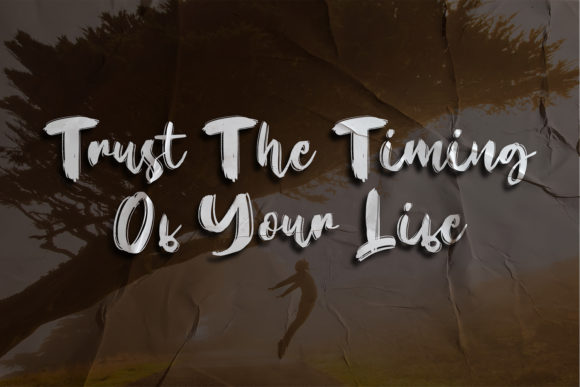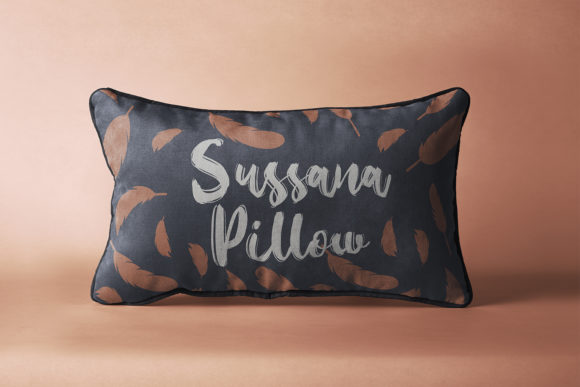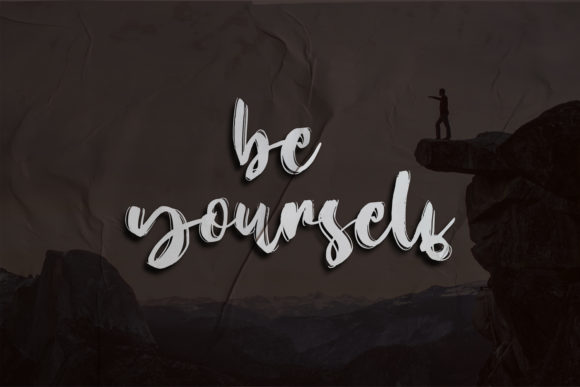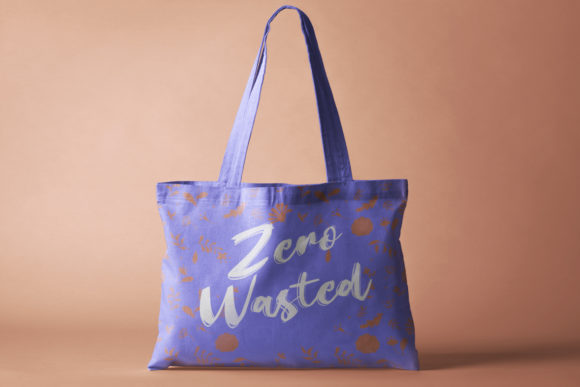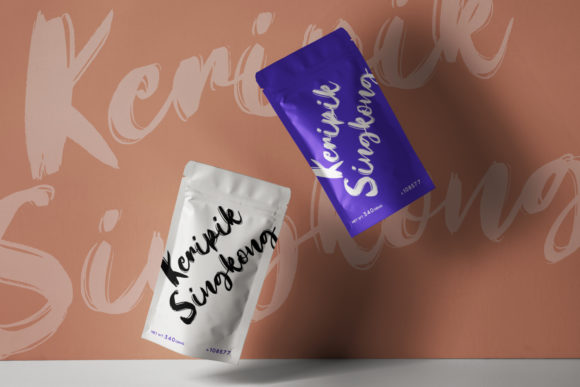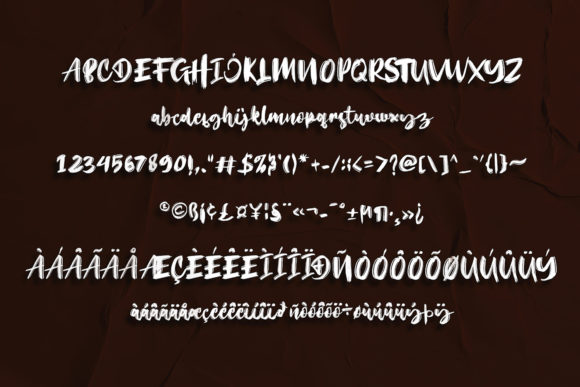
The Ultimate Crafting Font: High Performance
I’ll never forget the moment I stumbled upon the perfect font for my crafting project. I was working on a handmade card for a friend’s birthday, and I wanted it to feel extra special. As I scrolled through my font library, I came across High Performance – a beautiful, elegant script that seemed to dance across the page. It was love at first sight! 💕
High Performance combines natural handwriting with an elegant look, making it the ideal crafting font for designers, crafters, and creative hobbyists alike. In this article, we’ll dive into the world of High Performance, exploring its features, benefits, and uses.
• ✨ Elegant and refined aesthetic, perfect for crafting and design projects
• ✅ Natural handwriting feel that adds a personal touch
• 💫 Highly legible, even at small font sizes
• 🎨 Versatile and adaptable to various design styles and themes
While High Performance is an exceptional font, there are a few minor quirks to be aware of:
• 🤔 Some users may find the font a tad too slender for certain design applications
• ⚠️ Limited availability of condensed or bold variations
High Performance was designed with the creative crafter in mind. The font’s creator aimed to craft a script that would capture the essence of natural handwriting, while still exuding elegance and refinement. The result is a font that feels both personal and sophisticated – perfect for a wide range of design applications.
Q: What makes High Performance suitable for crafting projects?
A: High Performance’s elegant, refined aesthetic and natural handwriting feel make it an ideal choice for crafting projects, such as handmade cards, invitations, and DIY tutorials.
Q: Is High Performance available in multiple languages?
Q: Can I use High Performance with other fonts in a design?
A: Absolutely! High Performance pairs well with a variety of fonts. Experiment with different combinations to find the perfect balance for your design.